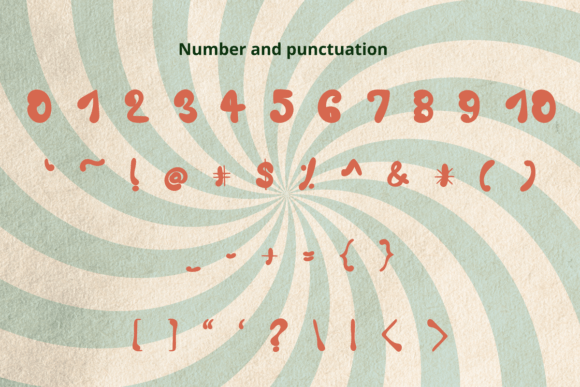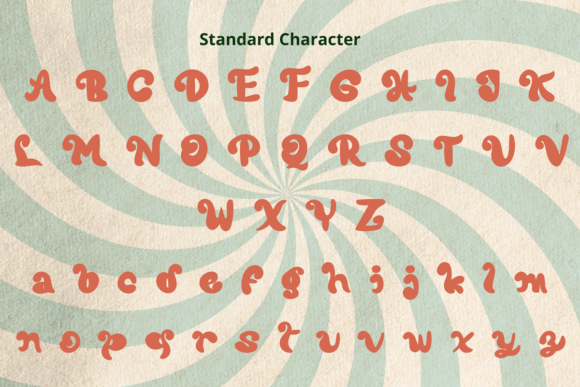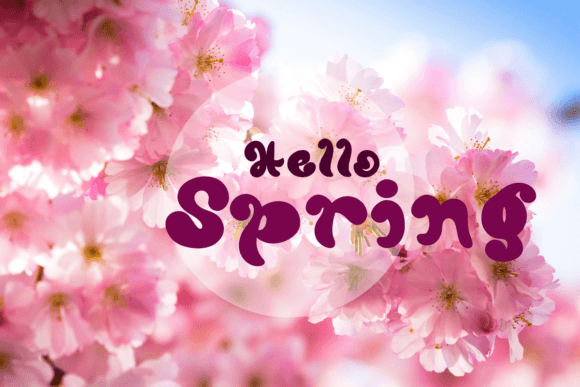
About Vintage Memory Font
Introducing “Vintage Memory,” a whimsical and bold handwritten font that adds a touch of nostalgia and uniqueness to your creative projects. With its distinctive style, “Vintage Memory” is designed to stand out and easily complement a wide range of projects, making it a versatile choice for various applications.
The whimsical and bold nature of “Vintage Memory” brings a sense of playfulness and character to your text. This makes it suitable for a variety of creative ideas where you want to convey a unique and memorable message.
Incorporate “Vintage Memory” into your designs and notice how it effortlessly enhances their visual appeal. Whether you’re working on posters, logos, packaging, or any other creative project, this font is crafted to make your designs stand out with its whimsical and bold presence.
In summary, “Vintage Memory” is more than just a font; it’s a creative asset that adds a touch of nostalgia and uniqueness to your projects. Download “Vintage Memory” now and explore how it can elevate your designs. With its whimsical and bold handwritten style, “Vintage Memory” is ready to make a memorable statement in your creative endeavors.